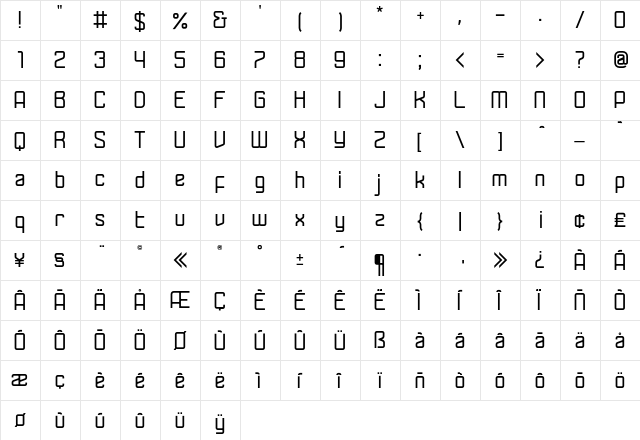
Ketamina OT Regular
| Foundry | Lava |
| Designer | Lucas Correa |
Design Context for Ketamina OT Typeface
Ketamina OT offers clean, dependable letterforms without strong stylistic allegiance, making it a practical choice for designers who need flexibility.